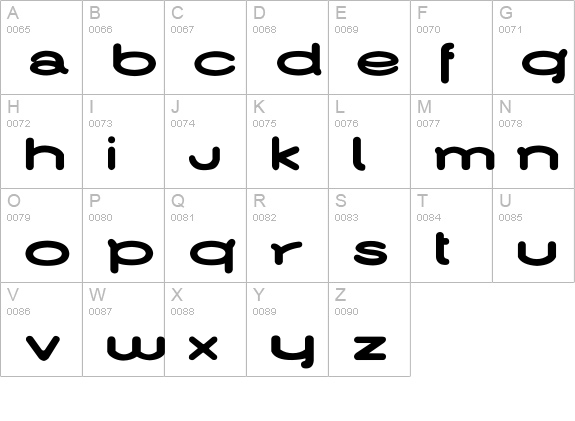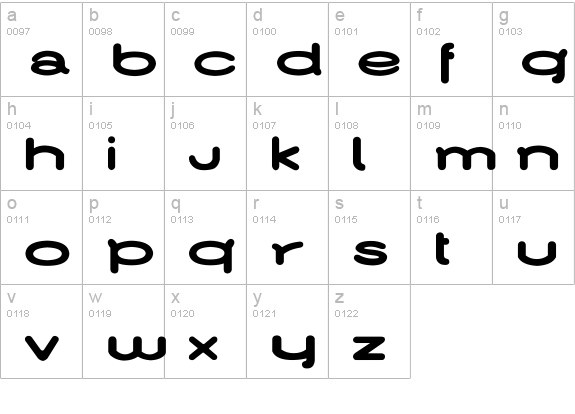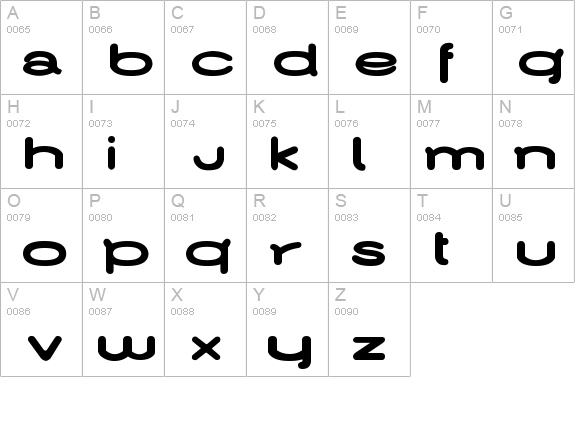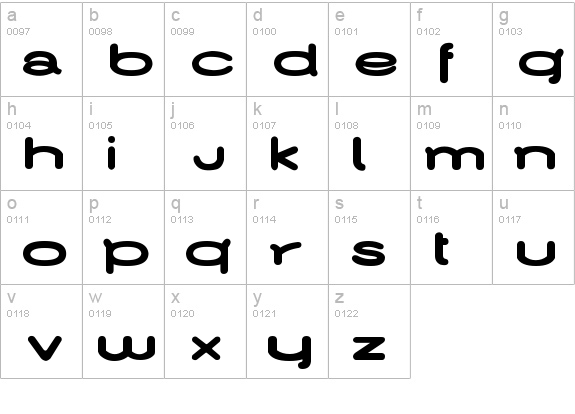
! Jamiroquai ! Font Details
Introducing the captivating and stylish ! Jamiroquai ! font, a modern typeface that exudes energy and creativity. This font is perfect for adding a touch of flair to your designs, whether for branding, marketing materials, or artistic projects. With its sleek lines and unique character shapes, ! Jamiroquai ! font stands out and grabs attention. What's even better is that this font is free for personal use! You can easily download it at FontsMarket.com and start using it in your projects right away. Allow ! Jamiroquai ! font to elevate your designs and make a lasting impression on your audience.